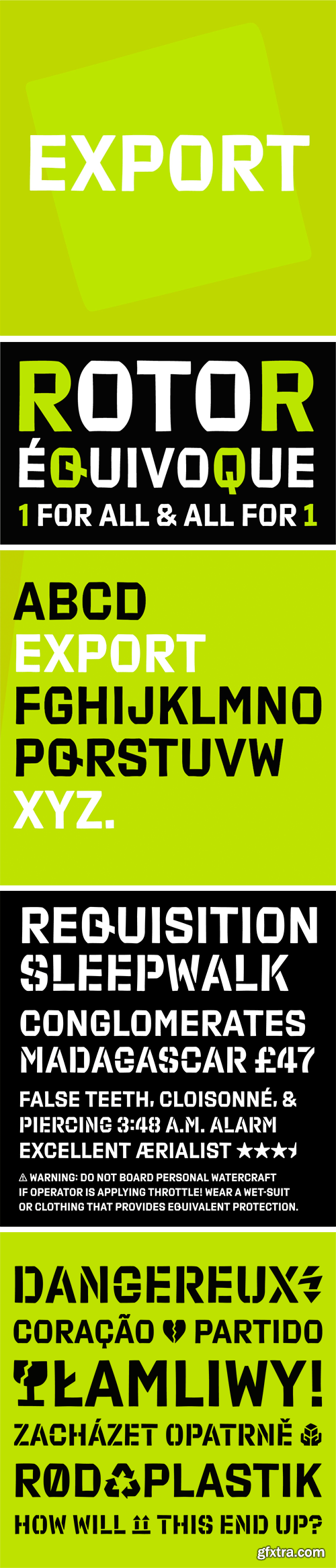
Export Font Family
The inspiration for Export arrived on the label of a humble shipping box. Originally crafted by unknown hands, these letterforms traveled from China to New York City. Now they arrive in digital form, maintaining the brawn and bite of a hand-carved flexo plate bluntly printed into cardboard.
A clever system of unconventional structures defies typographic doctrine, pushing through “bad” smack into “good.” Inflated shapes bulge into pinched counterforms, while rough edges give a worn finish to its blocky heft. Eccentric shapes command attention when isolated, but an industrial rhythm takes hold in chunks of text. Export Stencil turns the playful system of the original on its side, with a network of breaks that are both pragmatic and illogical. Although a collection of shipping caution symbols are enclosed, this is one durable package.